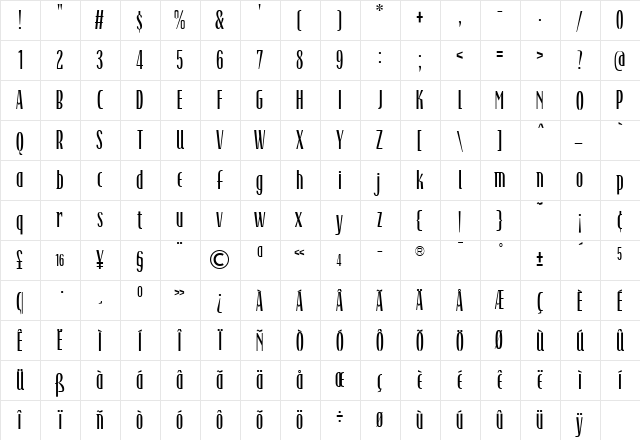
TFRaincheck Light
| Foundry | Treacyfaces, Inc |
Design Context for TFRaincheck Typeface
TFRaincheck is a composed and adaptable typeface that performs quietly and consistently across a wide range of design contexts. The delicate stroke weight brings airiness and refinement to layouts.